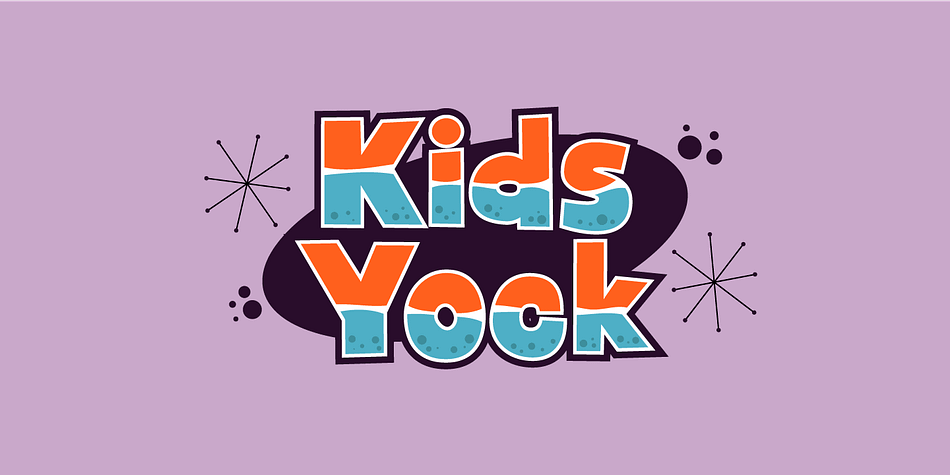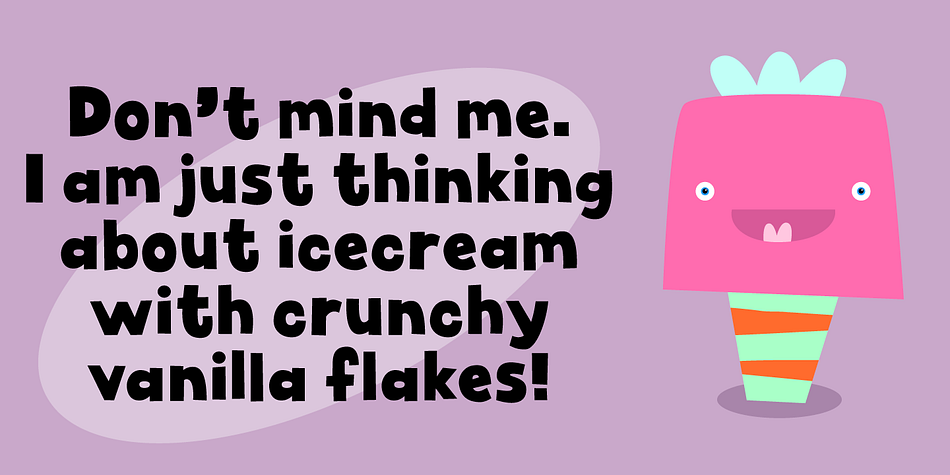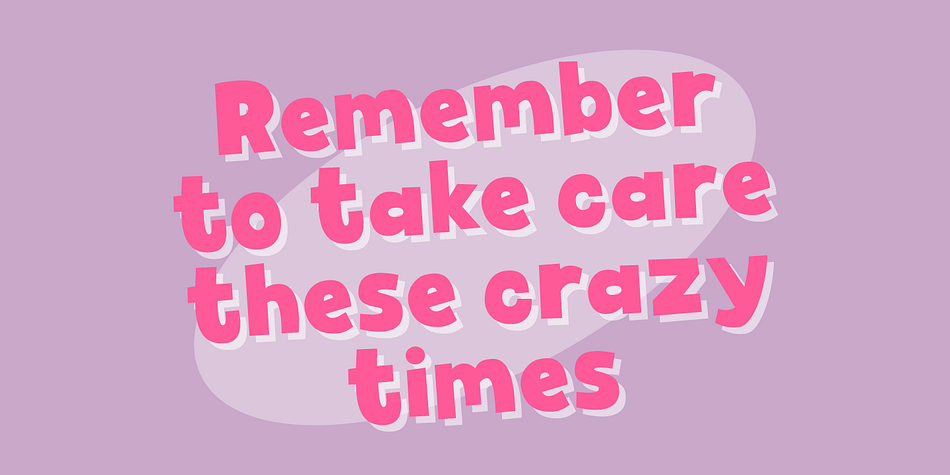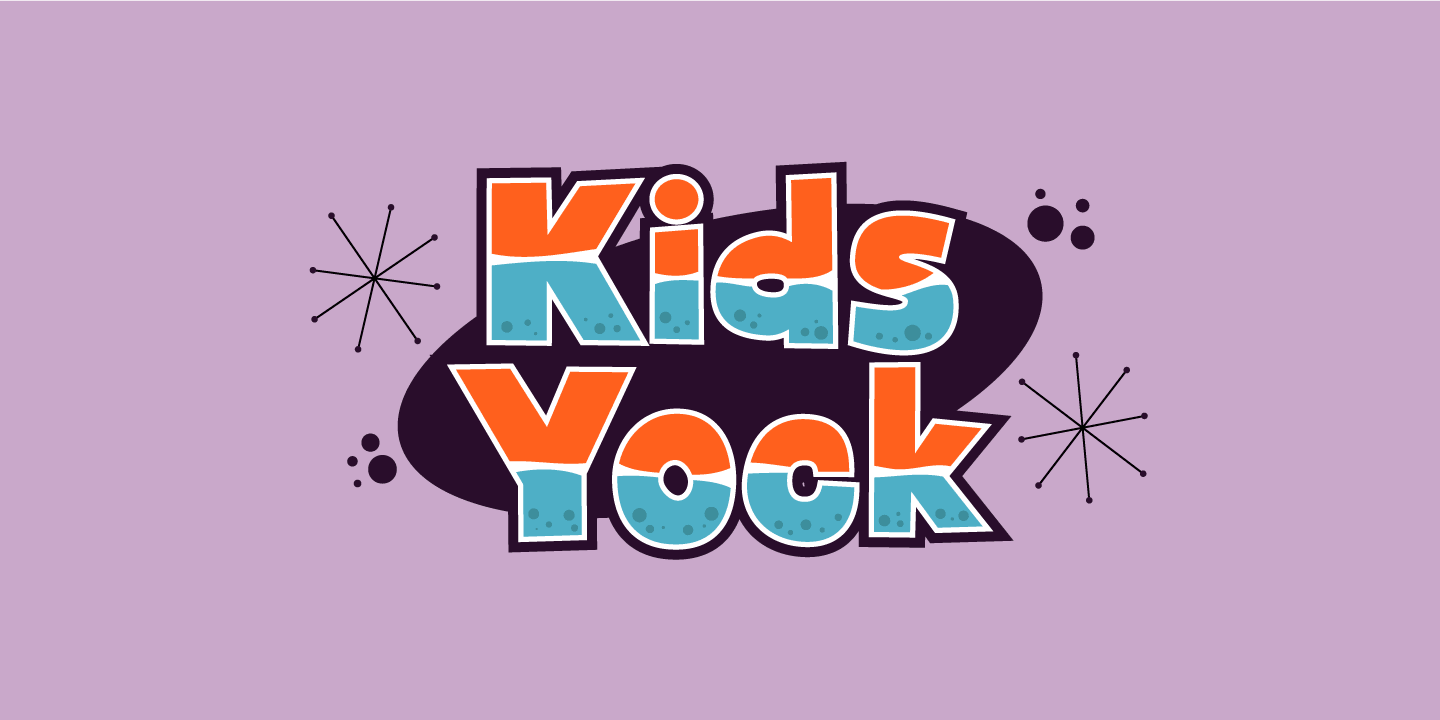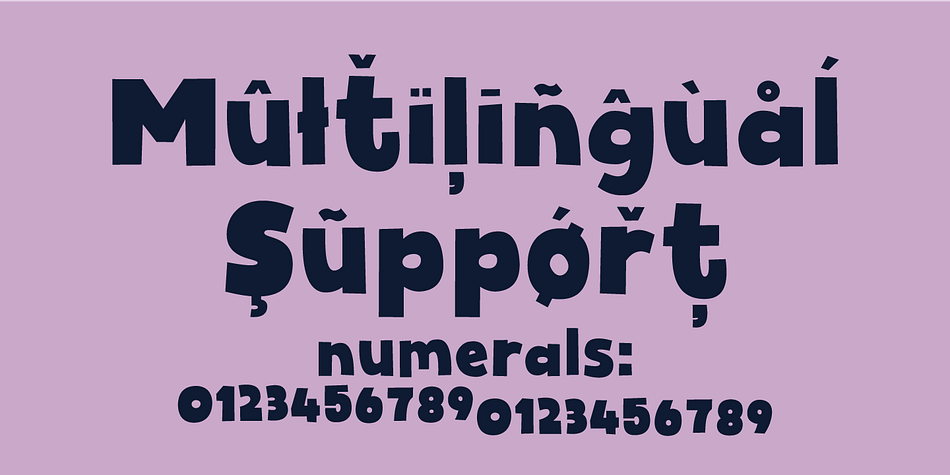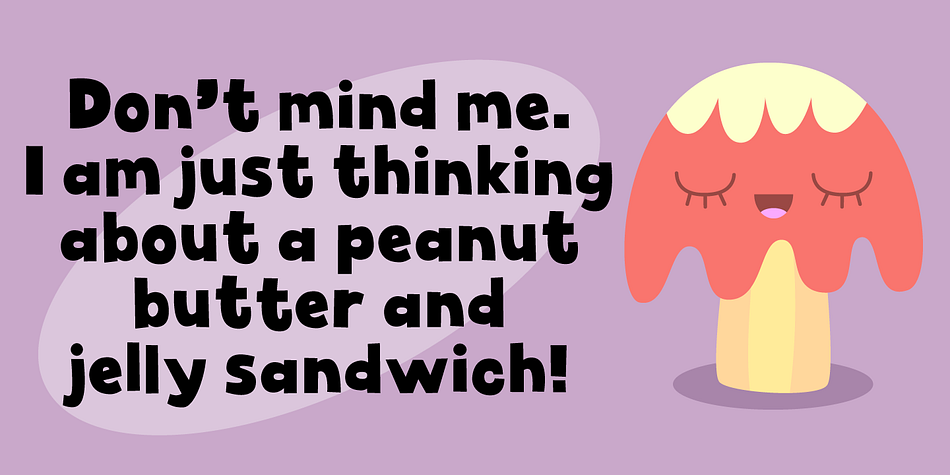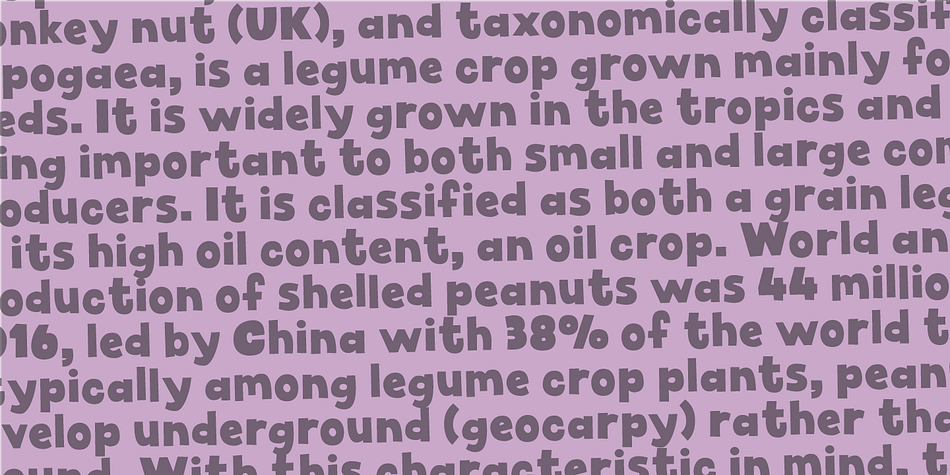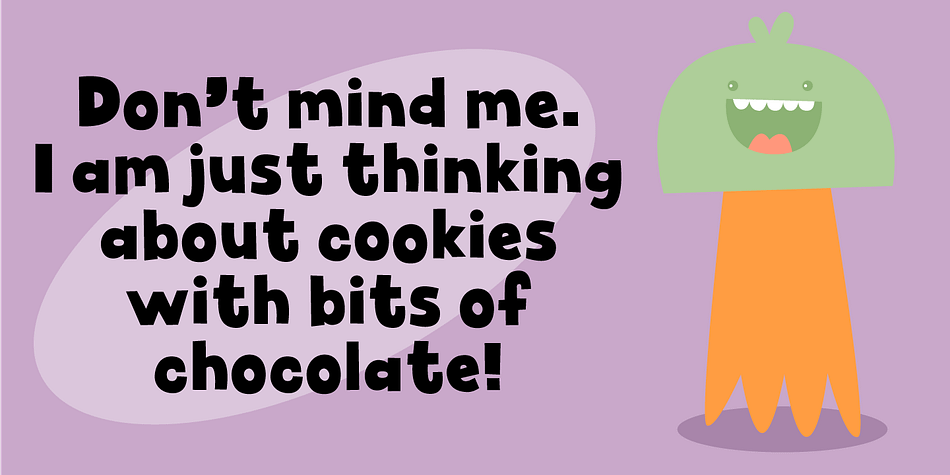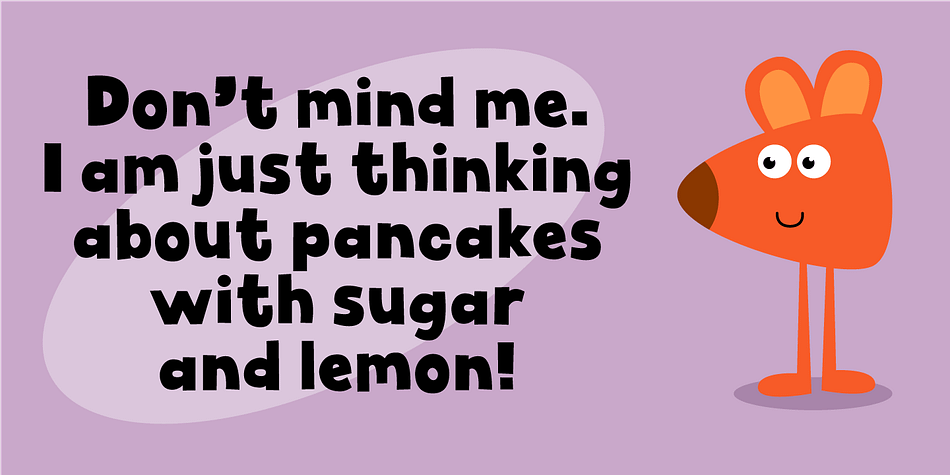
Designed by Jakob Fischer, Kids Yock is a hand display and kids font family. This typeface has two styles and was published by Pizzadude.dk.
Kids Yock is an updated and cleaner version of my popular comic font Kids Rock. Even though this font is more steady and clean, I did my best to keep the characteristics of the original font, which includes influences from grafitti and comics.